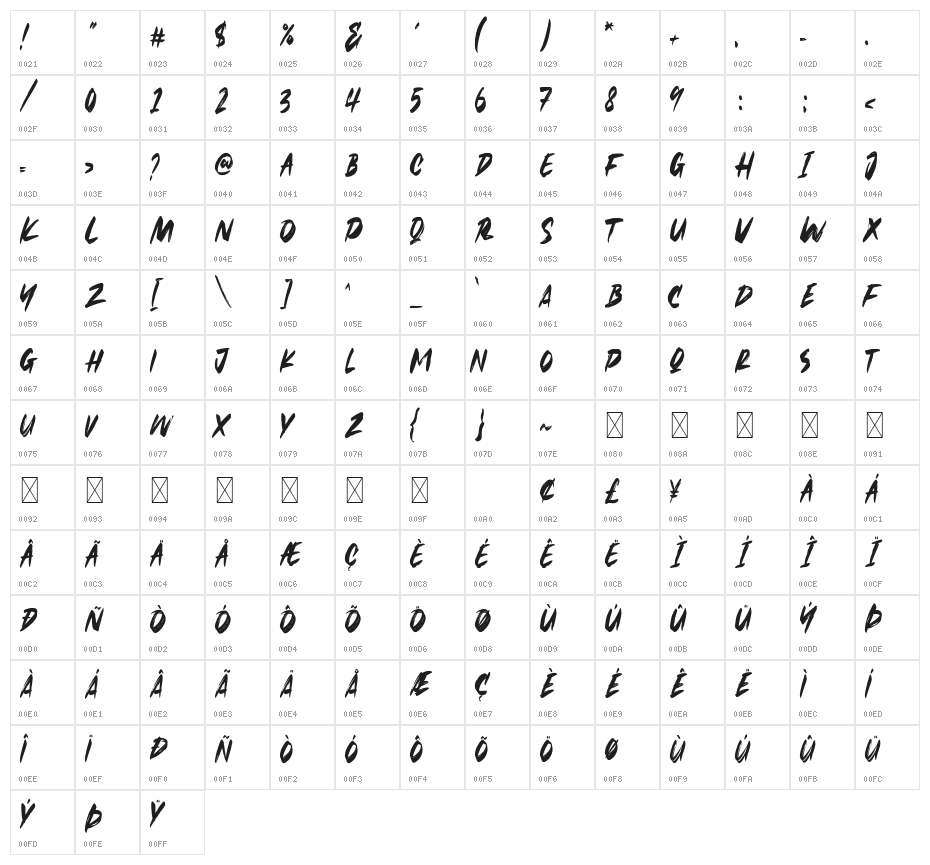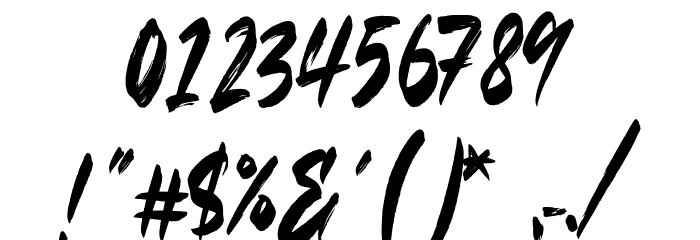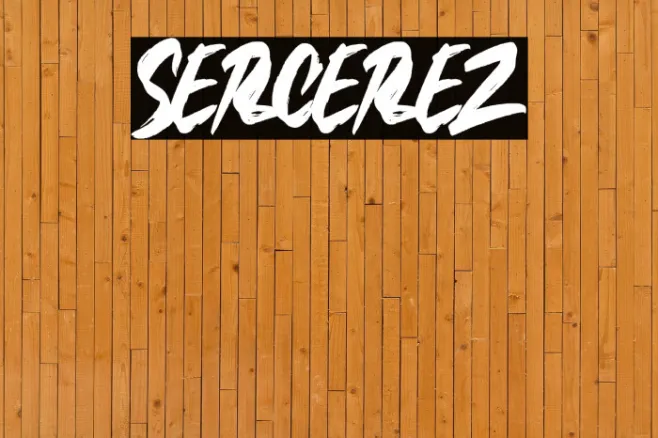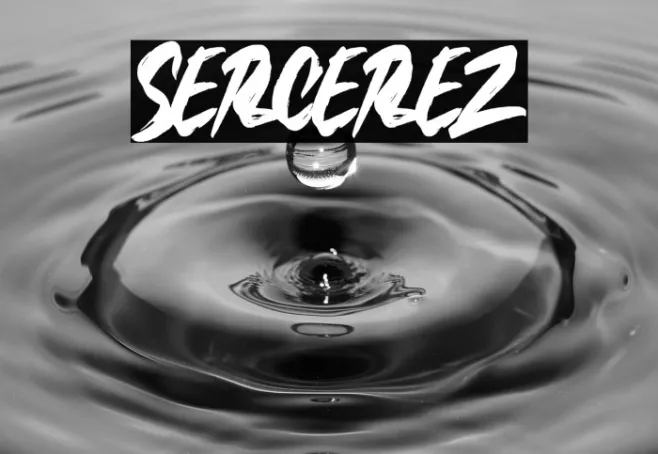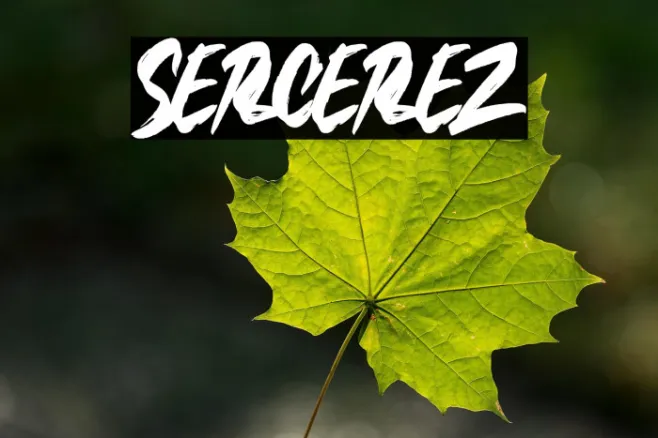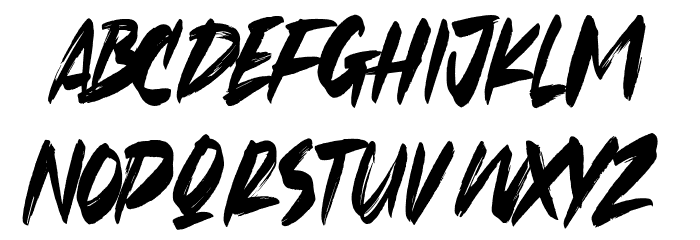
SERCEREZ Font
SERCEREZ Description
This font exhibits a bold and dynamic brush script style, characterized by its energetic and expressive strokes. Each letter is crafted with a sense of motion and fluidity, giving it a hand-painted appearance. The uppercase and lowercase letters maintain a consistent style, with thick, sweeping lines that vary in width, adding to the font's lively and artistic feel. The numbers and special characters follow the same design principles, ensuring a cohesive look across all elements. This font is ideal for projects that require a personal and creative touch.